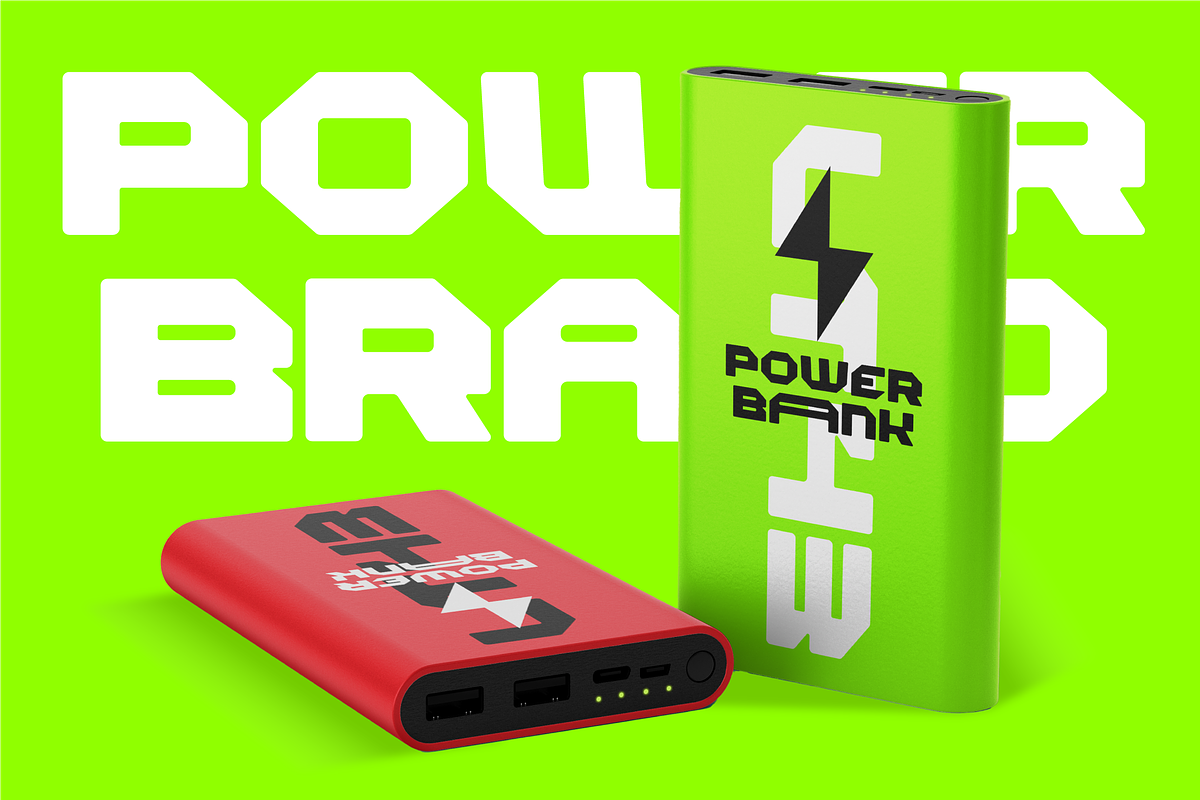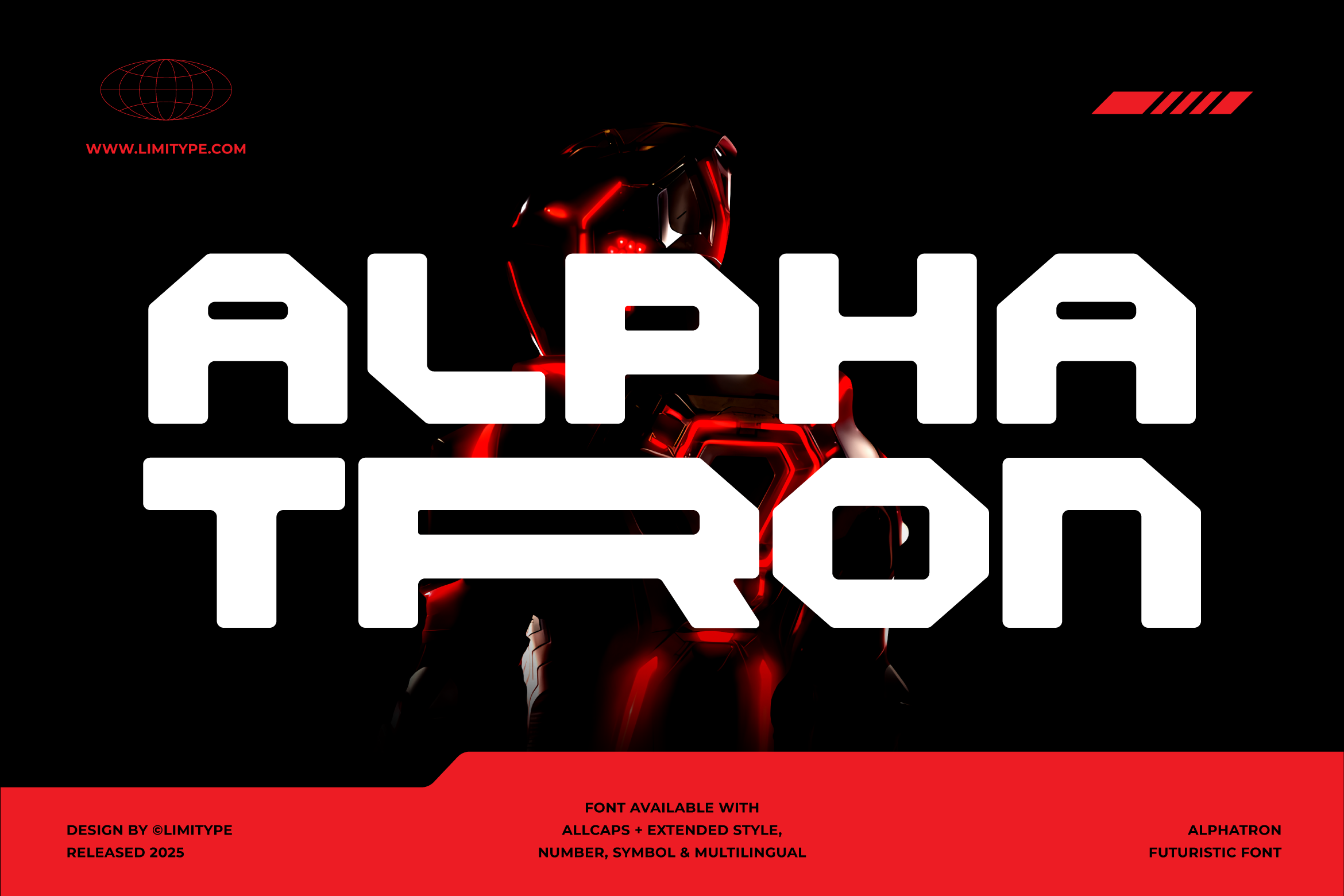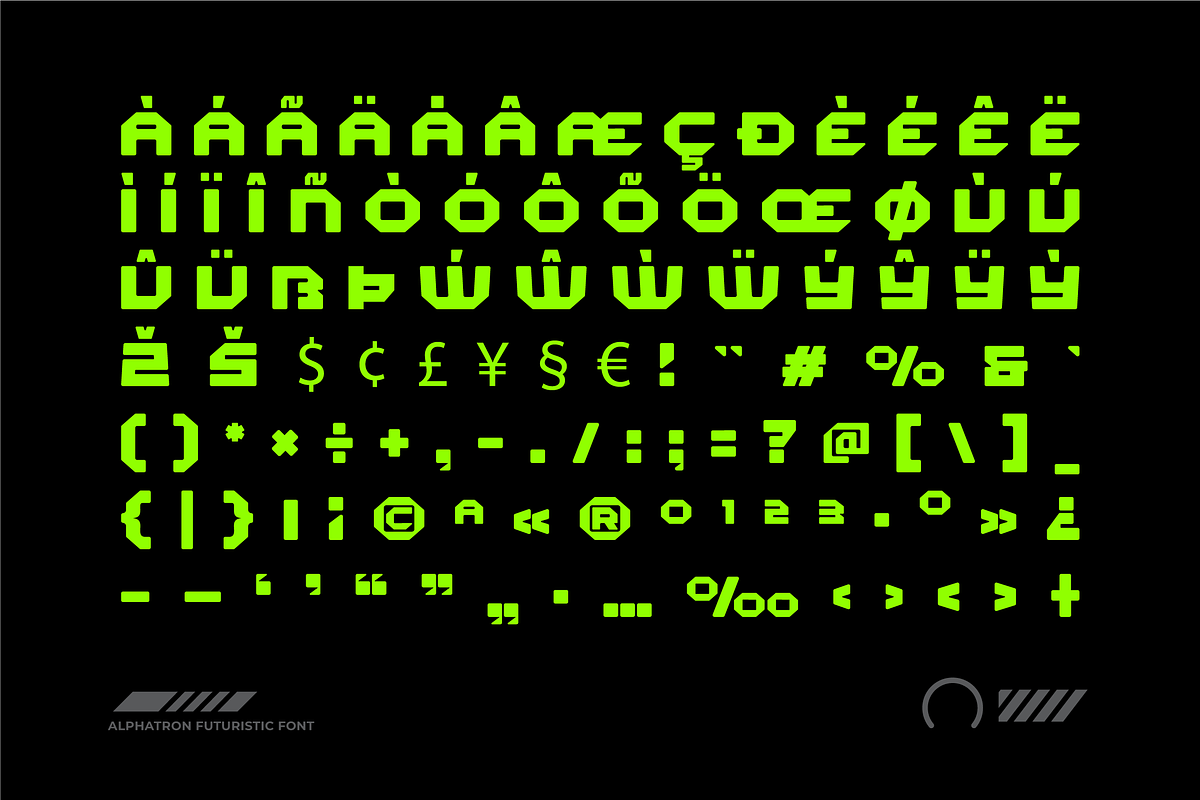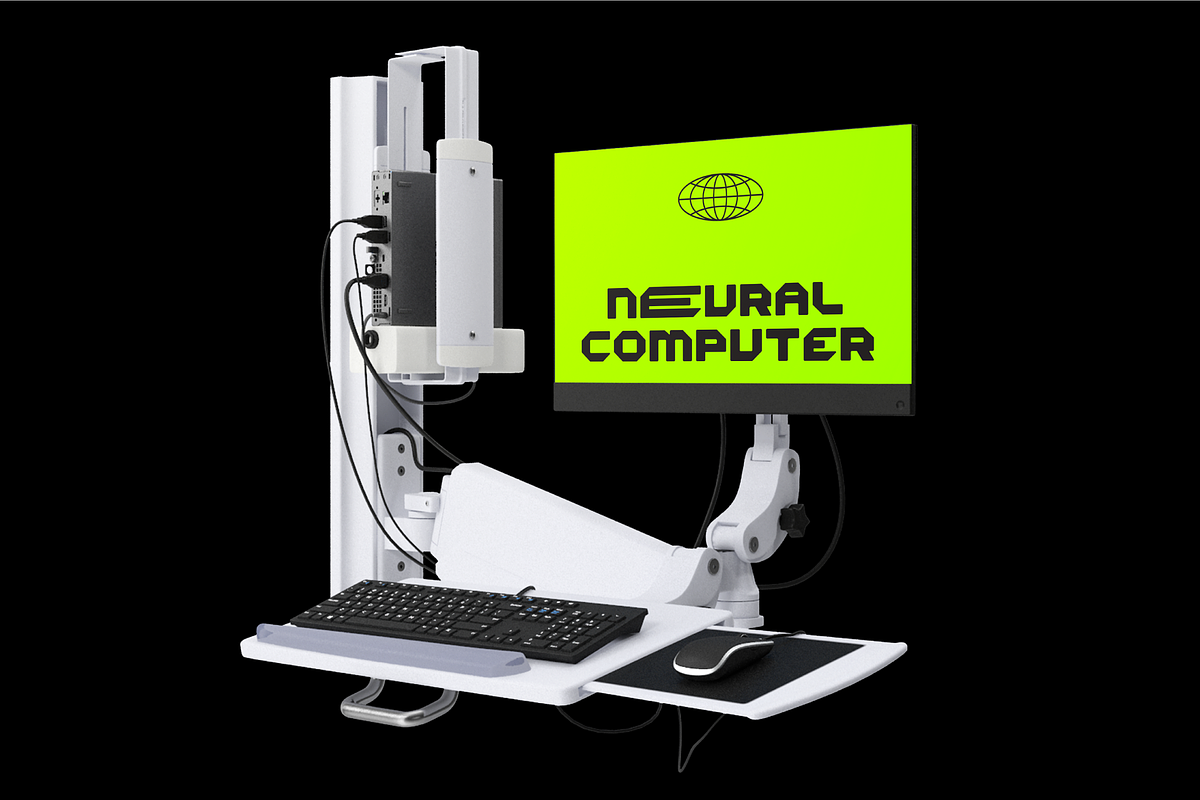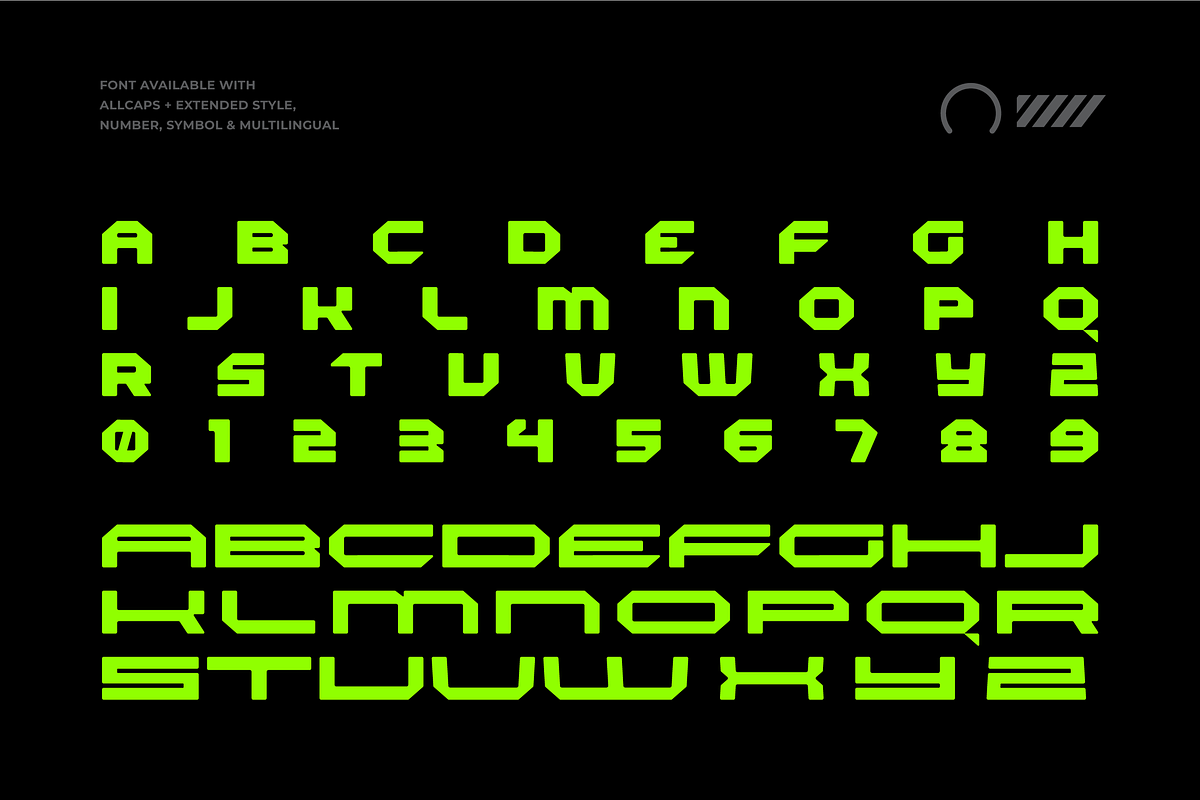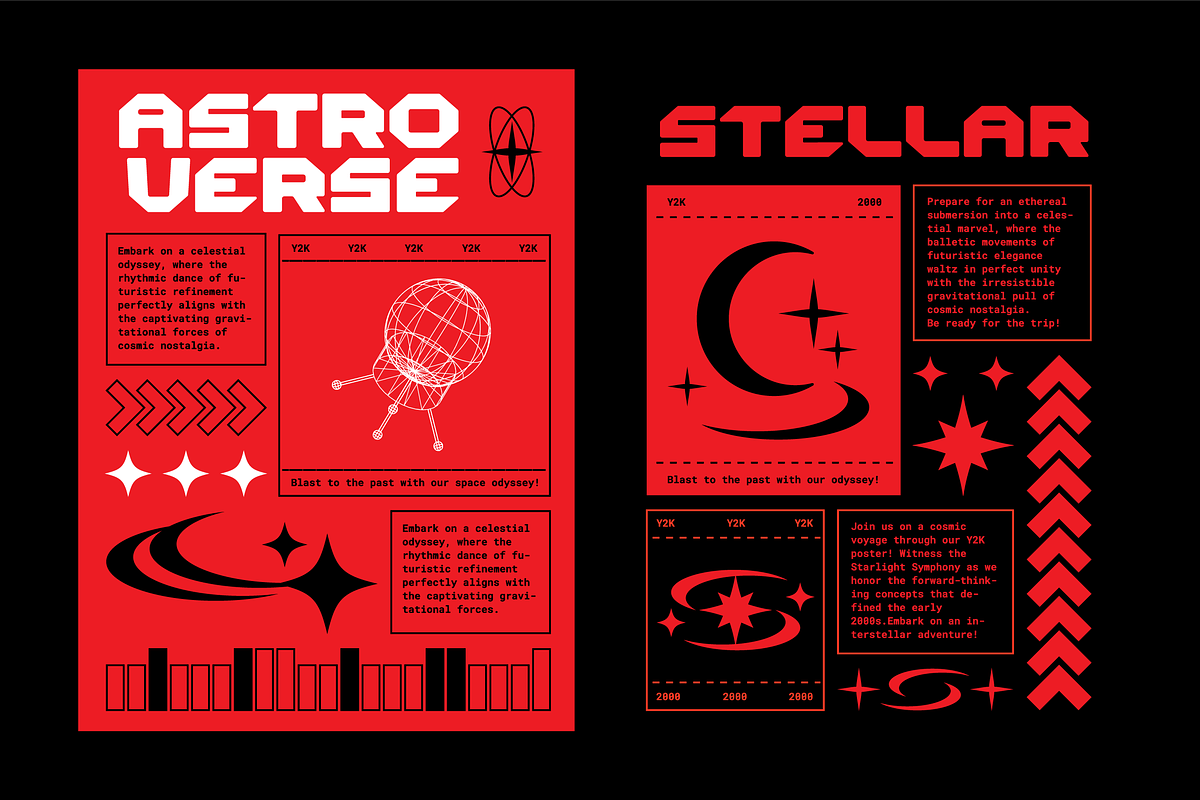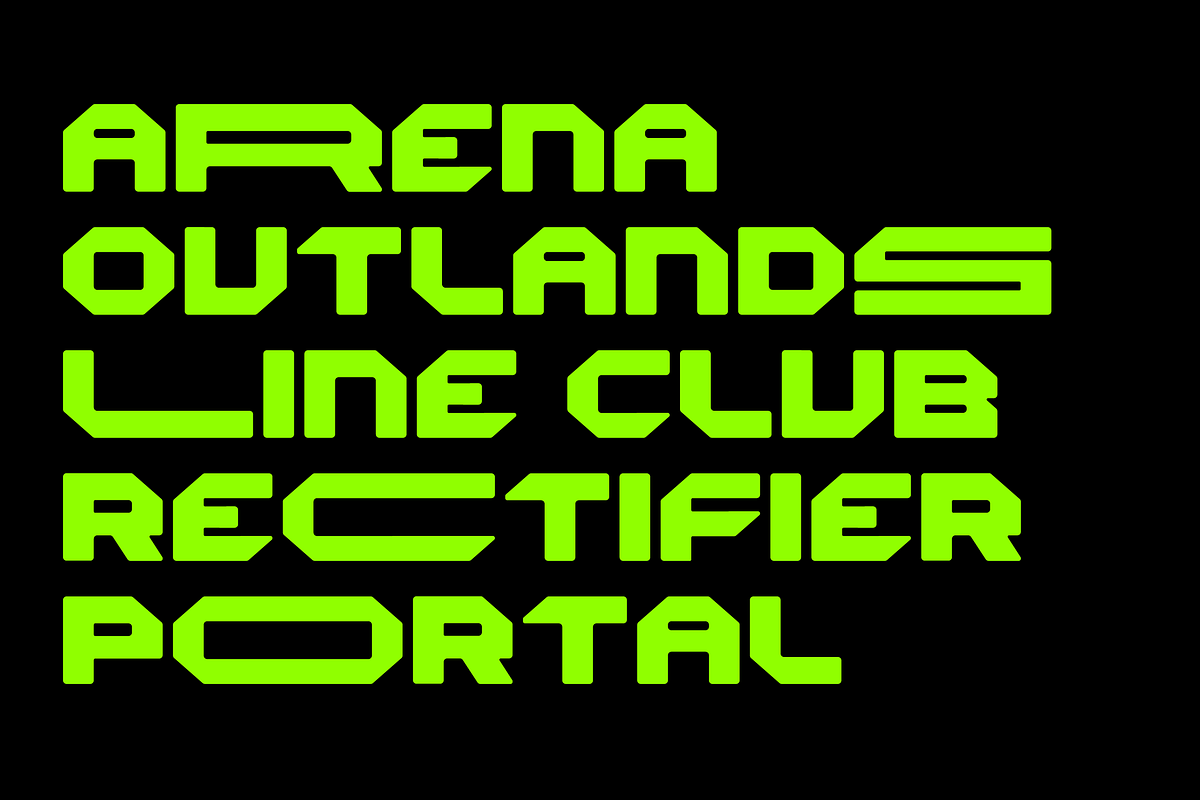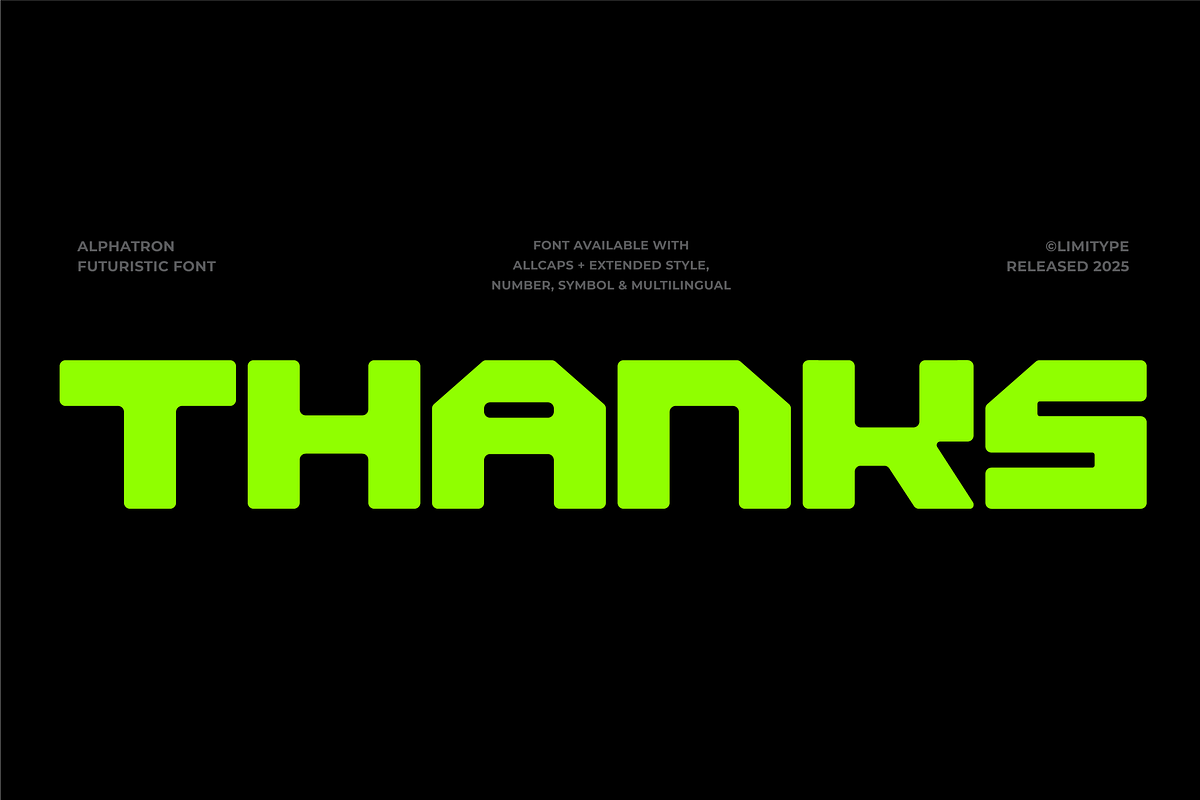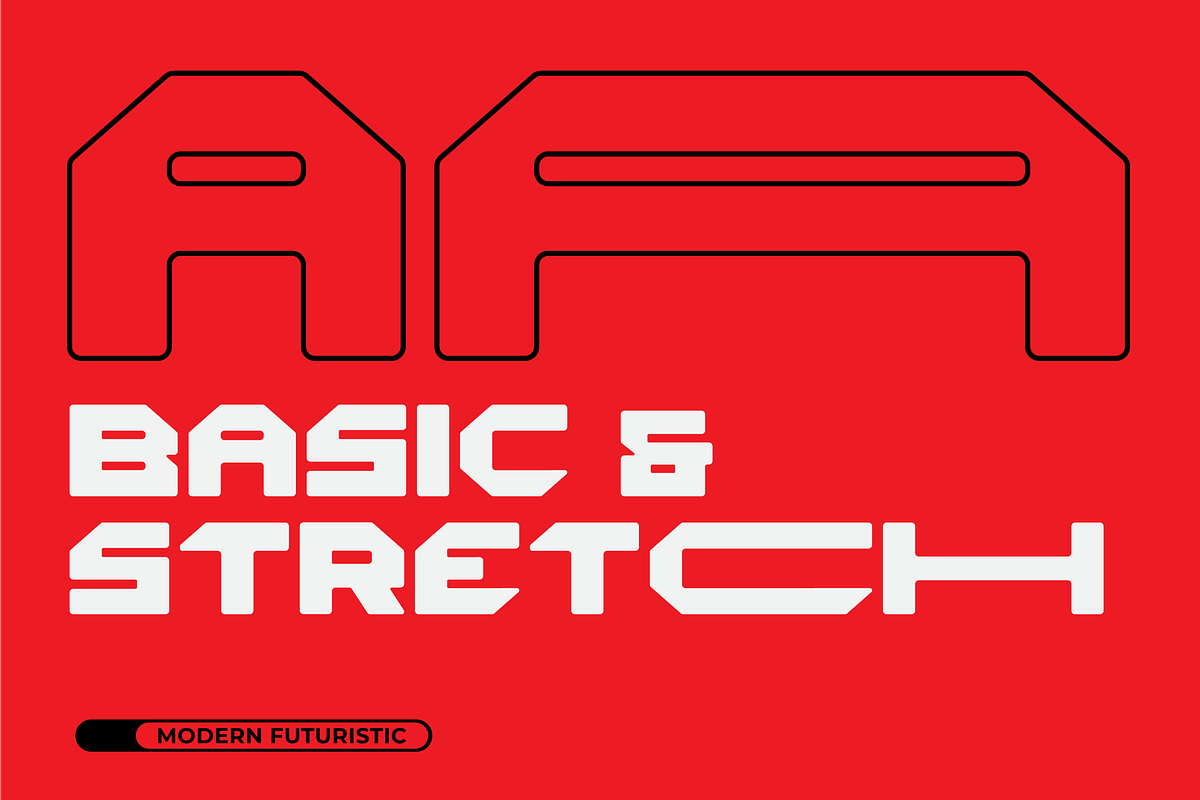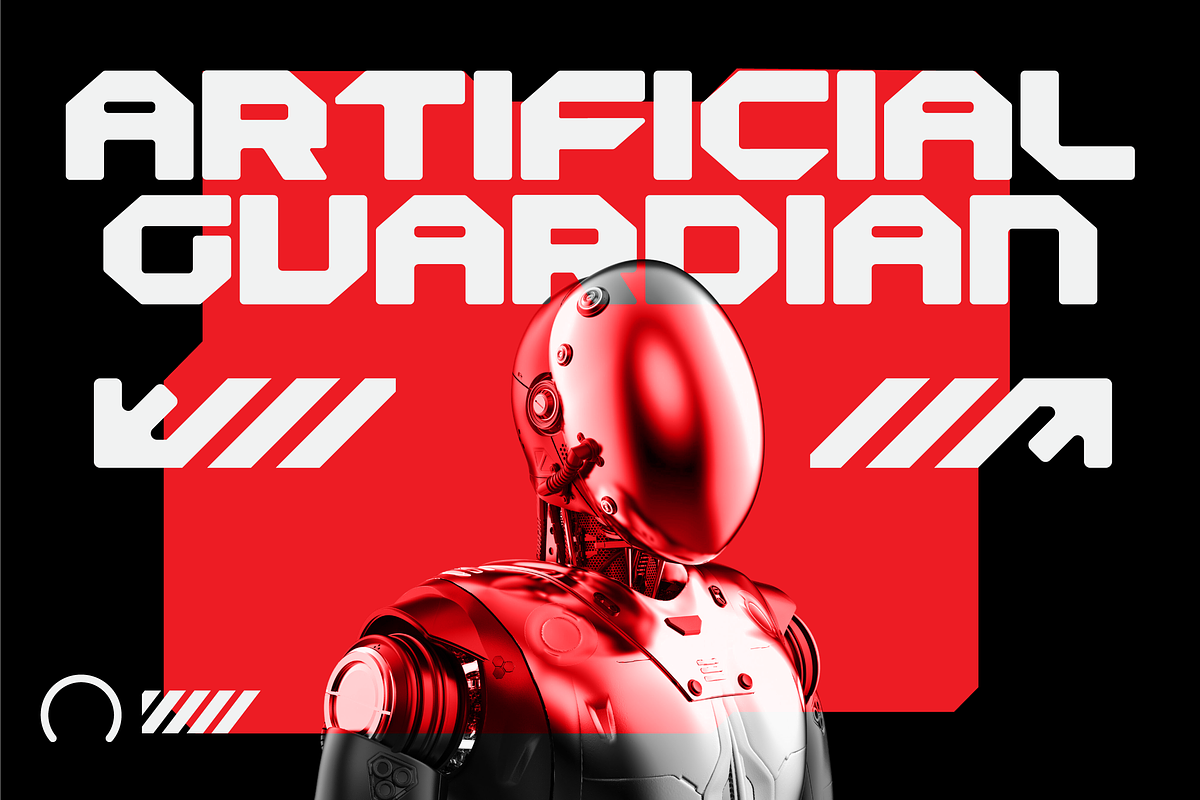
Alphatron - Futuristic Font
Alphatron is a display font with a bold and futuristic style. Perfect for standout headline designs, poster, branding, and future themed digital projects, Alphatron also comes with adjustable stretch variations. To use the stretch version, simply use lowercase letters.
Alphatron available with:
- Allcaps
- Stretch
- Symbol